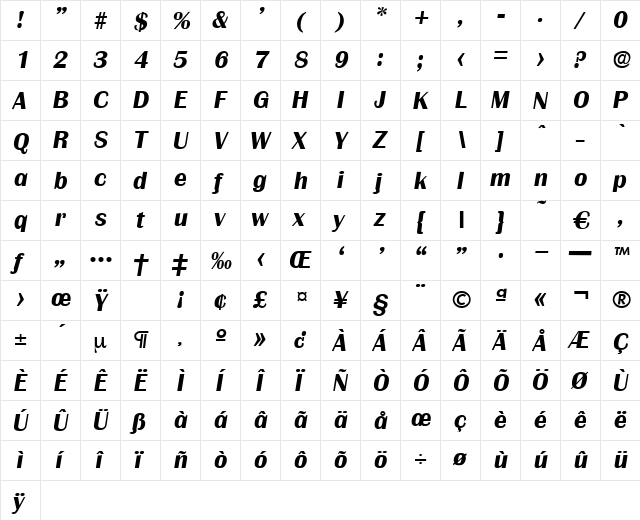
Grenoble-BoldIta Regular
Design Context for Grenoble-BoldIta Typeface
Grenoble-BoldIta is a composed and adaptable typeface that performs quietly and consistently across a wide range of design contexts. Its bold stroke weight gives it real presence on the page.